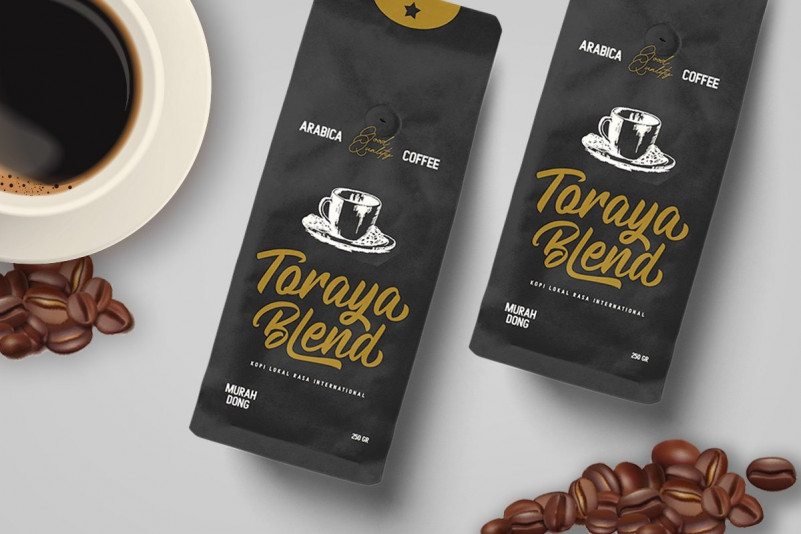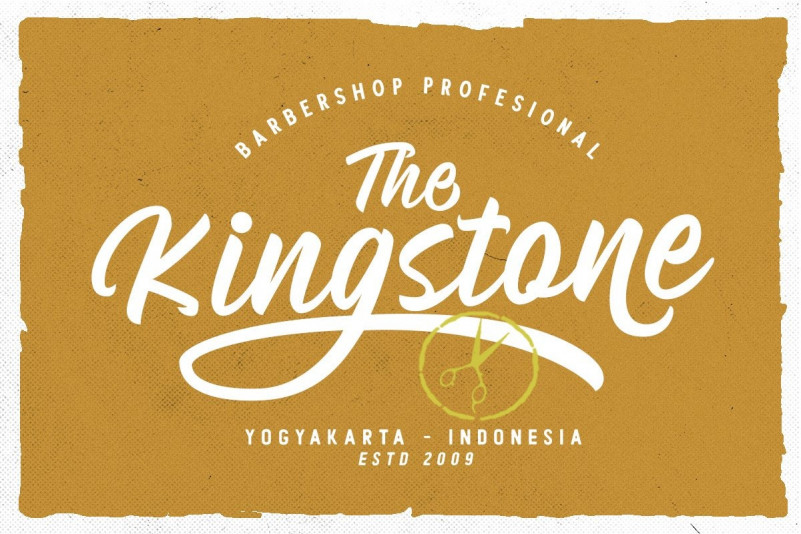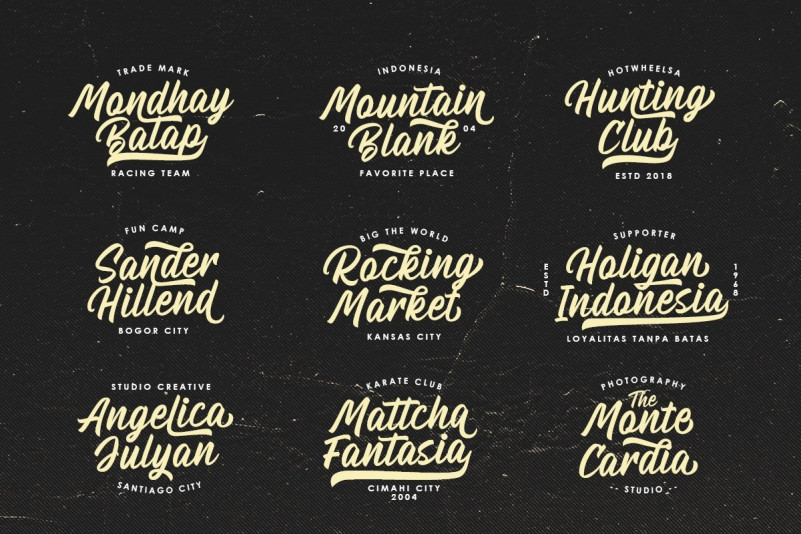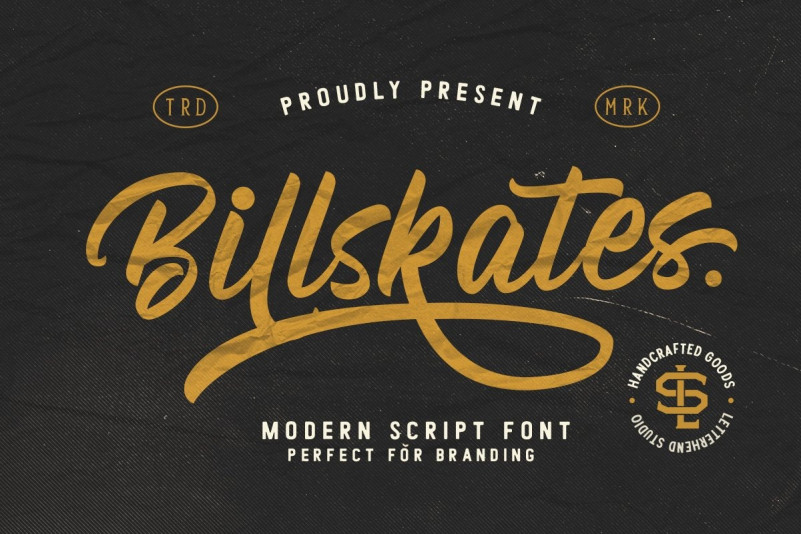
Billskates Script Font
A new modern script font by Letterhend Studio. This is made a naturally modern script with a fresh modern script, a bold script font and a combination of original handwriting styles inspired by hand lettering. Introducing Billskates Font. This font perfectly made to be applied especially in logo, and the other various formal forms such as invitations, labels, logos, magazines, books, greeting / wedding cards, packaging, fashion, make up, stationery, novels, labels or any type of advertising purpose.